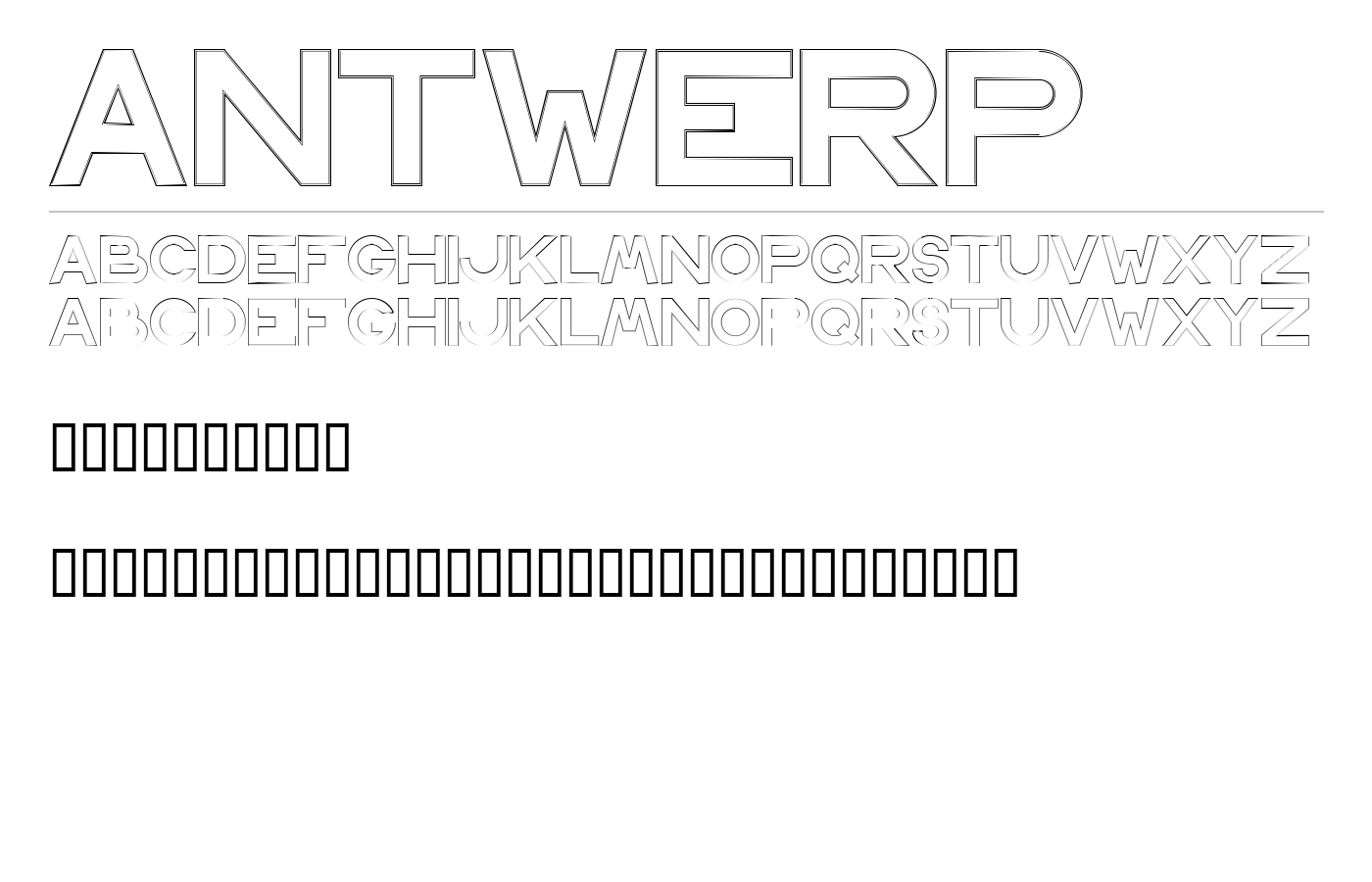
Antwerp is a bold, geometric sans serif font characterized by clean, straight lines and uniform stroke widths that give it a modern and structured appearance. Its uppercase-only design with consistent letter spacing and simple shapes makes it ideal for striking headlines, logos, and branding that require a strong and contemporary presence. This font works especially well in contexts where clarity and impact are essential, such as advertising, packaging, and editorial design.
Antwerp Font
| Designer | Richard van Horssen |